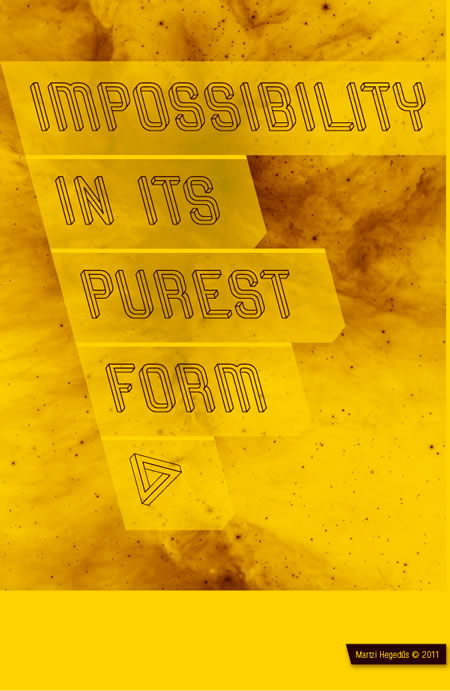
Frustro, the font and Escher, the mathematician
Frustro, Martzi Hegedüs and Escher
The puzzlement of design, translated as an impossibility of form in space.
A friend of mine, type and design hunter, blogger and musician, Stuart Balcomb [Los Angeles] pointed this reference out — the font.
The inversion of the Penrose triangle folding gracefully rounded space, in a flip/flop of perceptive curiously “impossible” typographic grace — designed by Hungarian Martzi Hegedüs, the font, Frustro, on Behance.
Frustro, the font and Escher, the mathematician
So too, the design strategy of Frustro — a font that wheels back and forth in the planes of time, folding space unto itself.
Frustro, the font and Escher, the mathematician